Noir Blanc Rouge
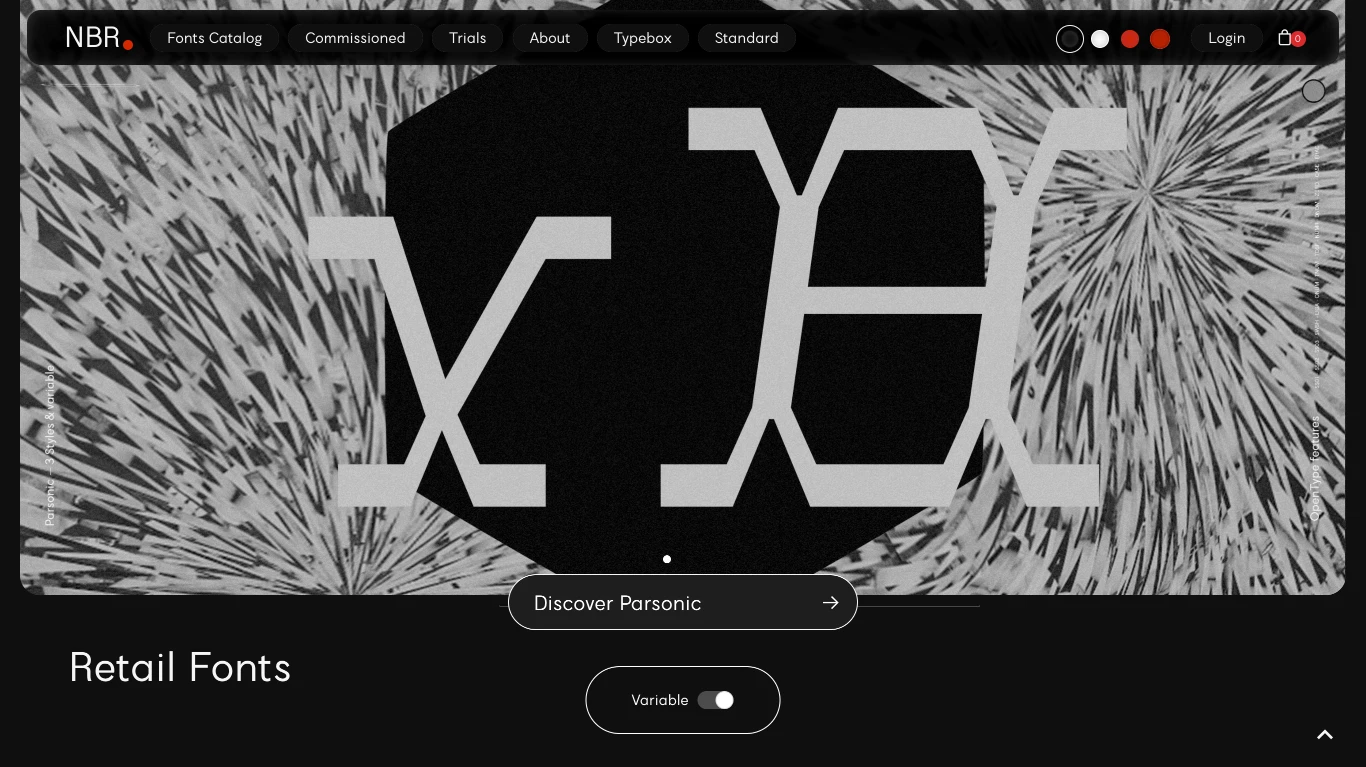
France
2019
Noir Blanc Rouge is an independent type foundry founded in 2019 by Paris-based designer Bastien Sozeau. The studio focuses on creating original retail and custom typefaces, with a strong commitment to both commercial and open-source projects. Their catalogue features a wide range of styles, from expressive display fonts to refined sans-serifs, including standout releases like Obliqa Glitch, Sablé, Dolores, Debut Serif and Sans, Boolean, Panamera, Young Serif, Formera, Lil Grotesk, Libertine Super, Beon Display, and Nemoy. Their work has been used across various creative contexts and by clients such as Kipling, Christian Louboutin, and The Olympic Museum.